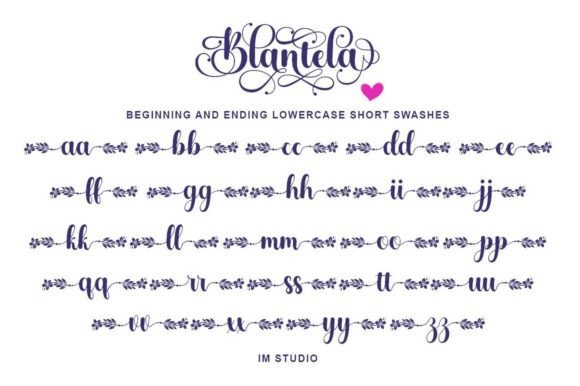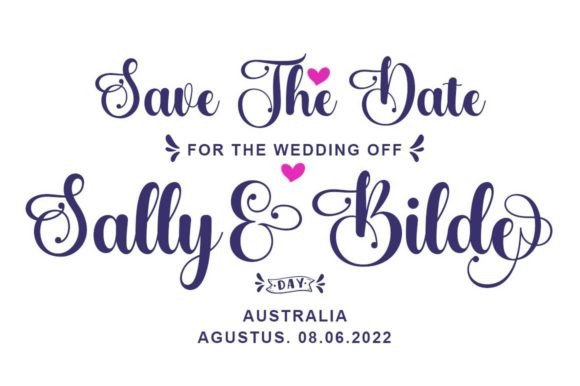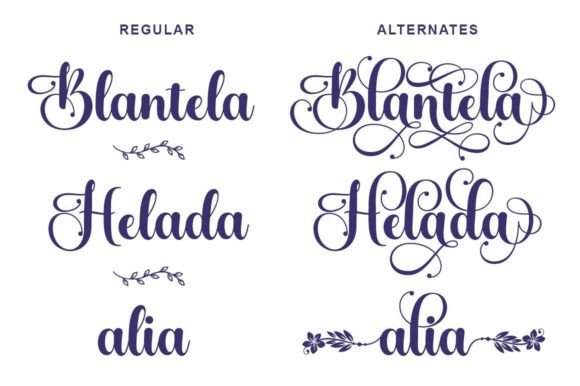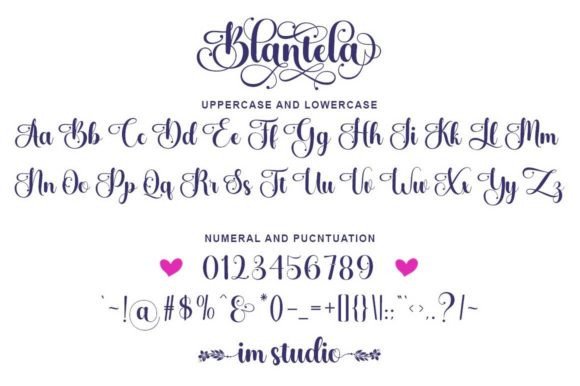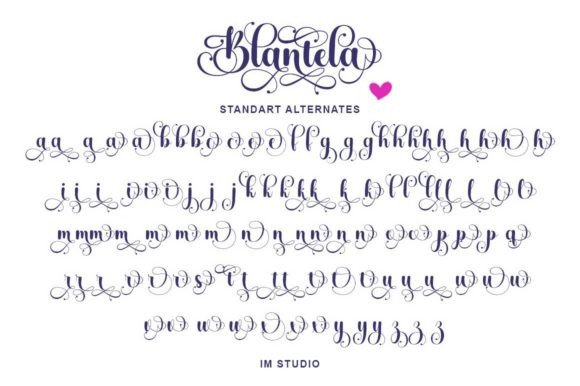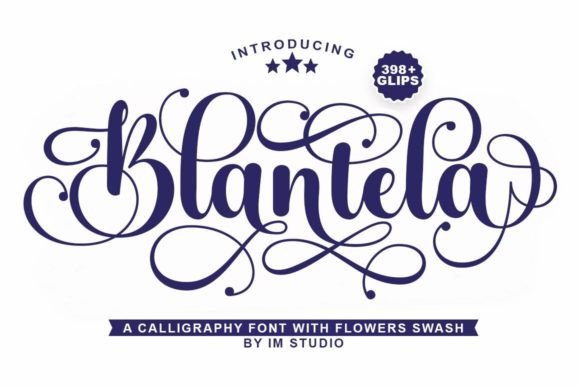
Introducing Blantela Font: Elevate Your Designs with Elegance and Romance
Are you a designer, crafter, or DIY enthusiast looking for a font that exudes style, sophistication, and a touch of romance? Look no further than Blantela Font! This beautiful, refined font is perfect for a wide range of applications, from greeting cards and wedding invitations to headlines and branding materials. In this article, we’ll dive into the world of Blantela Font, exploring its features, benefits, and uses, and provide you with valuable insights on how to make the most of this stunning font.
What is Blantela Font?
Blantela Font is a stylish and elegant typeface designed to add a touch of romance and sophistication to any design project. Its refined lines, curves, and subtle nuances make it an ideal choice for designers and crafters seeking to create beautiful, high-end visuals. Whether you’re working on a wedding invitation, a greeting card, or a headline, Blantela Font is sure to impress.
Key Features of Blantela Font
- Elegant and Refined: Blantela Font boasts a sophisticated design with smooth lines, flowing curves, and a touch of luxury.
- Romantic and Whimsical: This font exudes a sense of romance and playfulness, making it perfect for wedding-related designs, Valentine’s Day cards, and other projects that require a touch of whimsy.
- Versatile: Blantela Font is suitable for a wide range of applications, from digital designs to print materials, and can be used for both headlines and body text.
- Easy to Read: Despite its elegant design, Blantela Font remains highly legible, ensuring that your message is conveyed clearly and effectively.
Uses of Blantela Font
Blantela Font is an incredibly versatile typeface that can be used in a variety of design projects, including:
- Greeting Cards: Add a touch of elegance and romance to your greeting cards, whether it’s for a birthday, anniversary, or holiday.
- Wedding Invitations: Make your wedding invitations truly special with Blantela Font, perfect for formal or informal wedding designs.
- Headlines and Titles: Use Blantela Font to create stunning headlines and titles for your blog posts, articles, or social media graphics.
- Branding and Packaging: Incorporate Blantela Font into your brand identity and packaging materials to convey a sense of luxury and sophistication.
Tips for Using Blantela Font
To get the most out of Blantela Font, follow these expert tips:
- Pair with Contrasting Fonts: Combine Blantela Font with a contrasting font to create visual interest and hierarchy in your design.
- Experiment with Colors: Try Blantela Font with different colors, from soft pastels to rich jewel tones, to add depth and emotion to your design.
- Play with Sizes: Use Blantela Font in various sizes to create visual hierarchy and emphasize key elements in your design.
In conclusion, Blantela Font is a stunning, elegant typeface that can elevate your designs and add a touch of romance and sophistication. With its versatility, legibility, and beauty, Blantela Font is perfect for designers, crafters, and DIY enthusiasts seeking to create high-end visuals. Whether you’re working on a greeting card, wedding invitation, or headline, Blantela Font is sure to impress. So why wait? Download Blantela Font today and start creating beautiful designs that will leave a lasting impression!